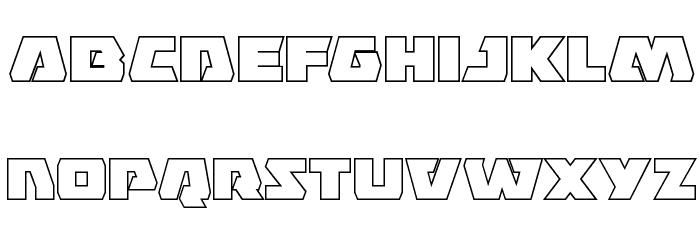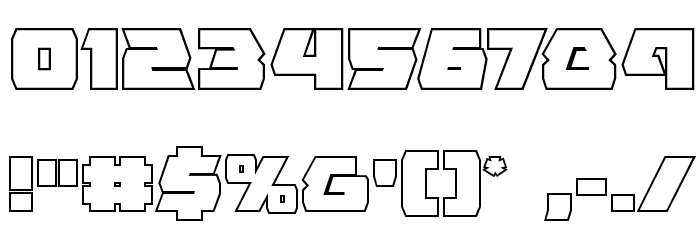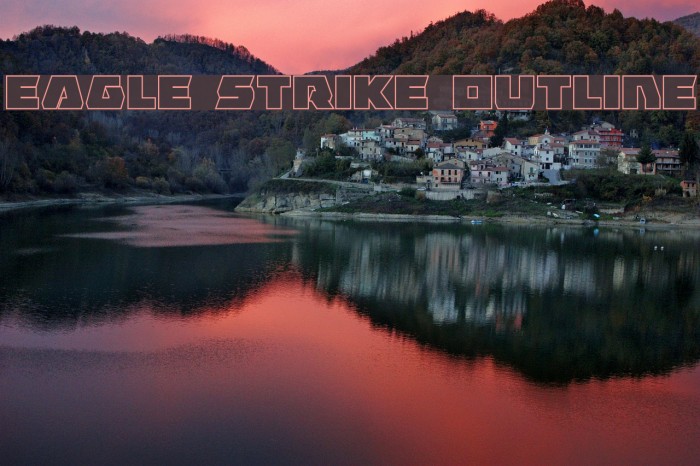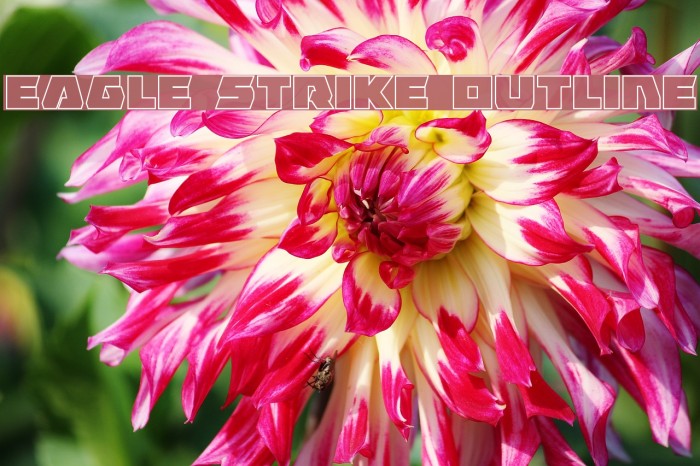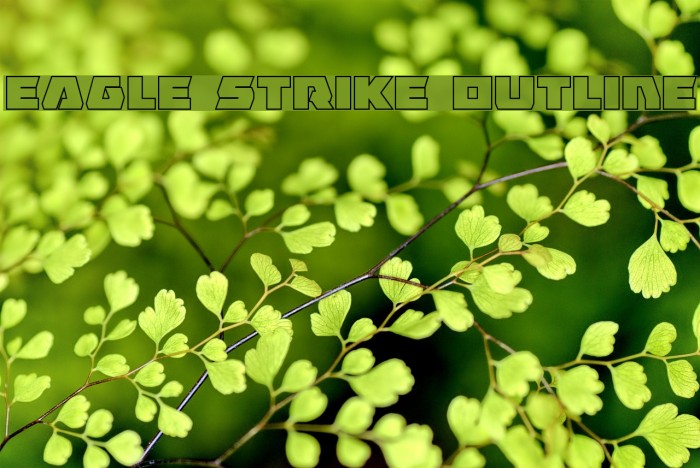
Eagle Strike Outline Font
This font features a bold, geometric outline style with sharp angles and a futuristic aesthetic. Each character is designed with a distinct, angular form that gives it a striking and dynamic appearance. The uppercase letters are particularly bold, with a strong presence that commands attention. The numbers and special characters maintain the same angular and outlined style, ensuring consistency across all elements. This font is ideal for projects that require a modern and edgy look, such as tech-related branding, video game titles, or sci-fi themed designs.
A bold, geometric outline font with a futuristic and angular design.
- Proposed Projects: Ideal for tech branding, video game titles, sci-fi themes, and modern posters.
- Overall Style: Futuristic